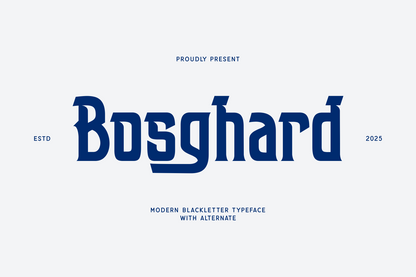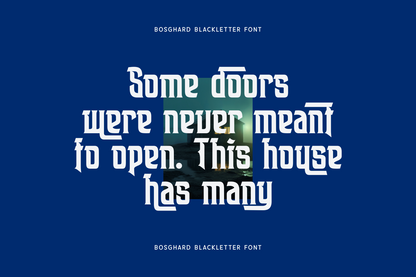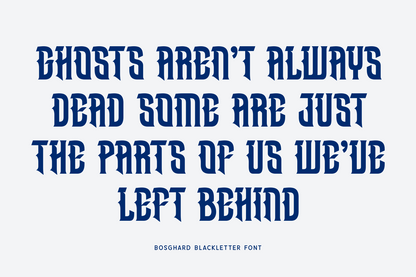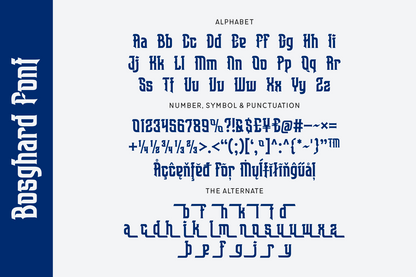
Bosghard is a sleek blackletter typeface with modernized strokes and clean geometry. Ideal for branding, esports, and packaging where traditional gothic flair meets contemporary design.